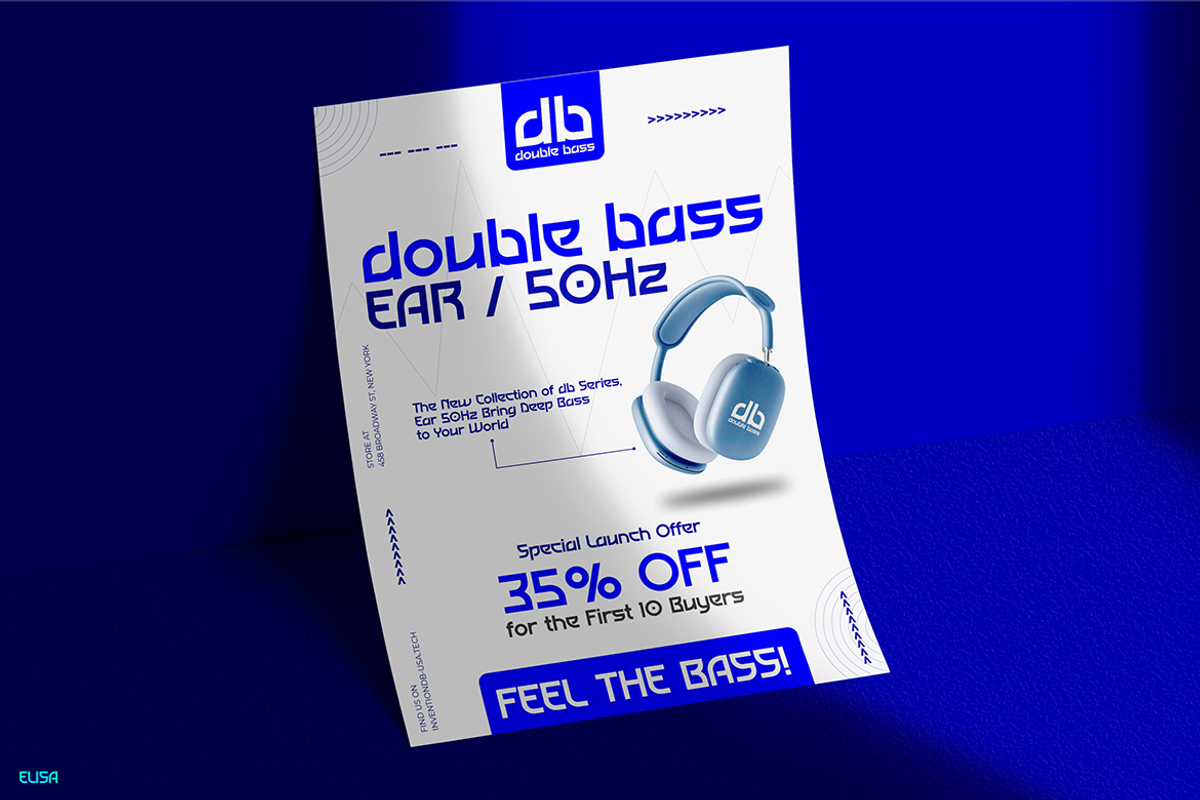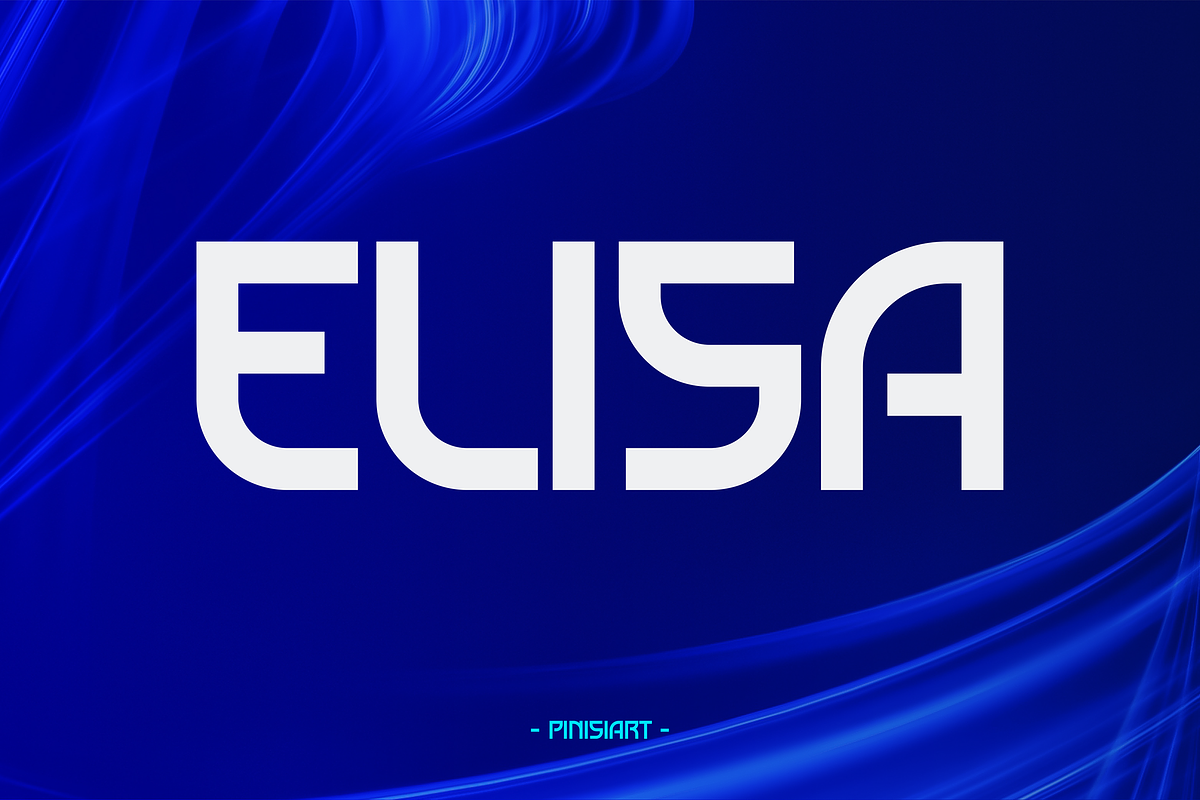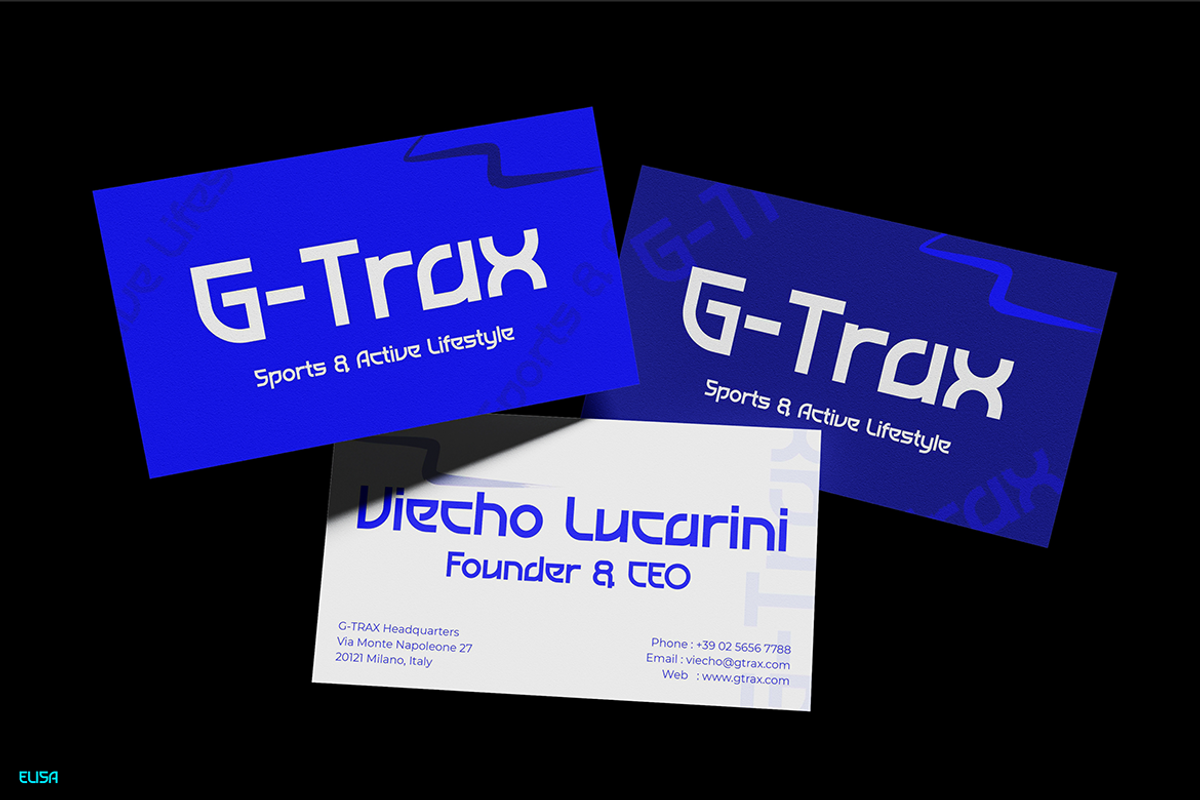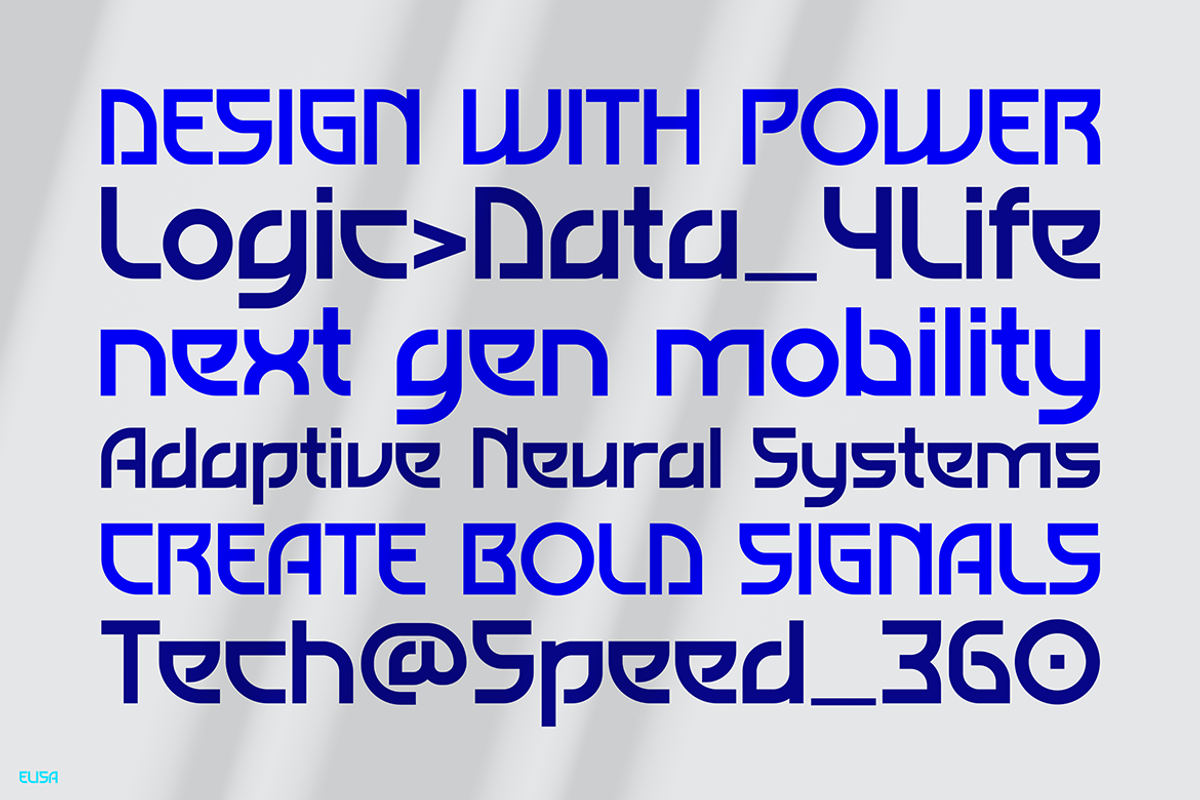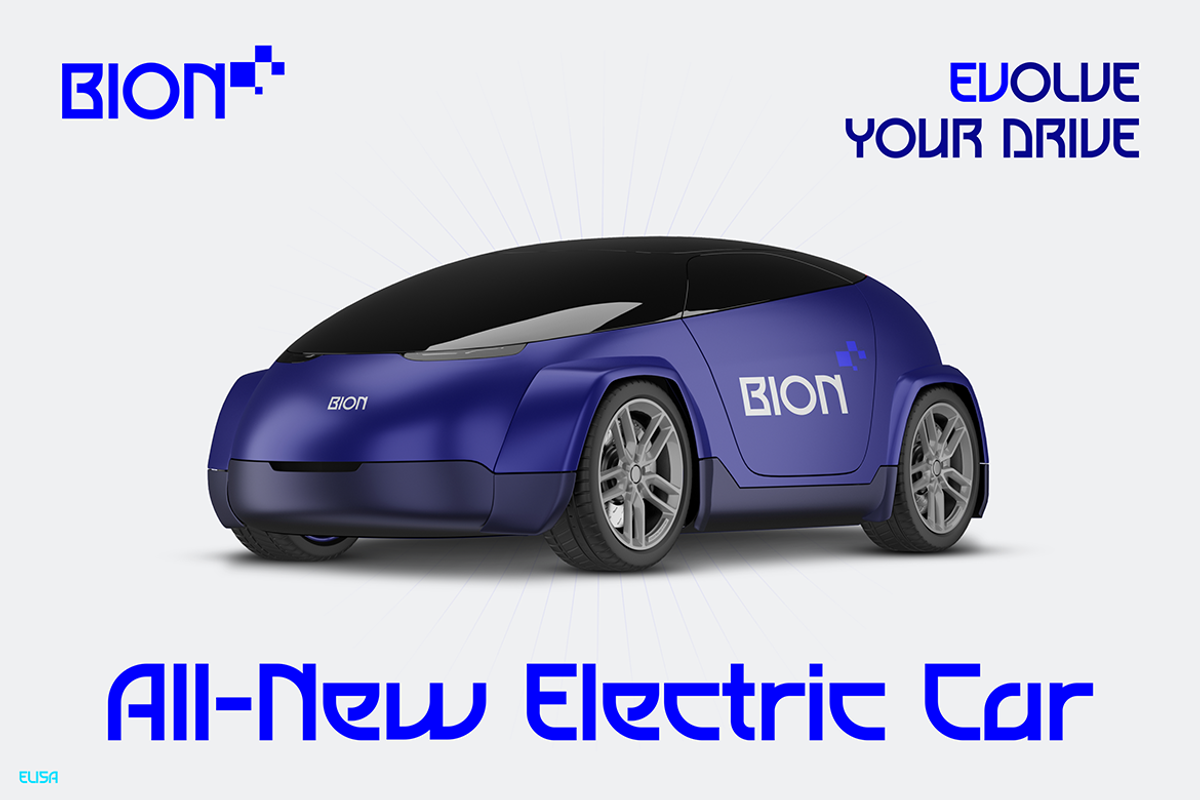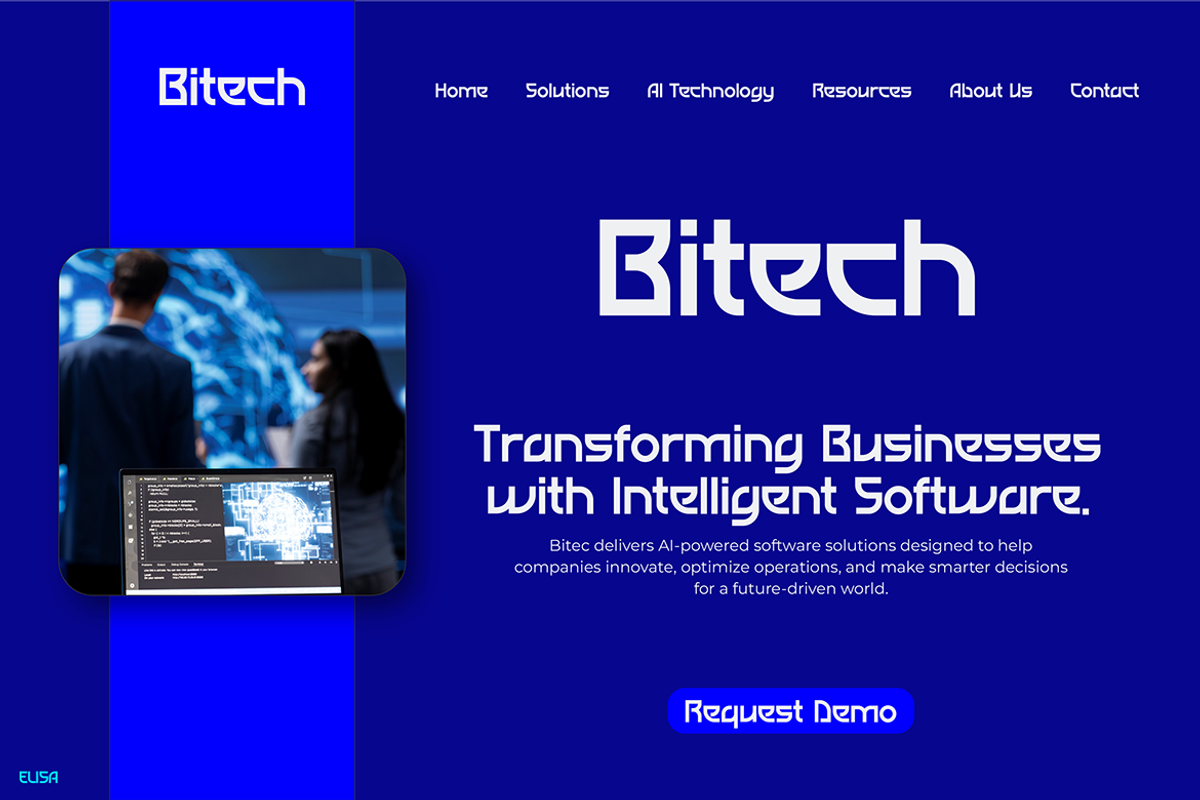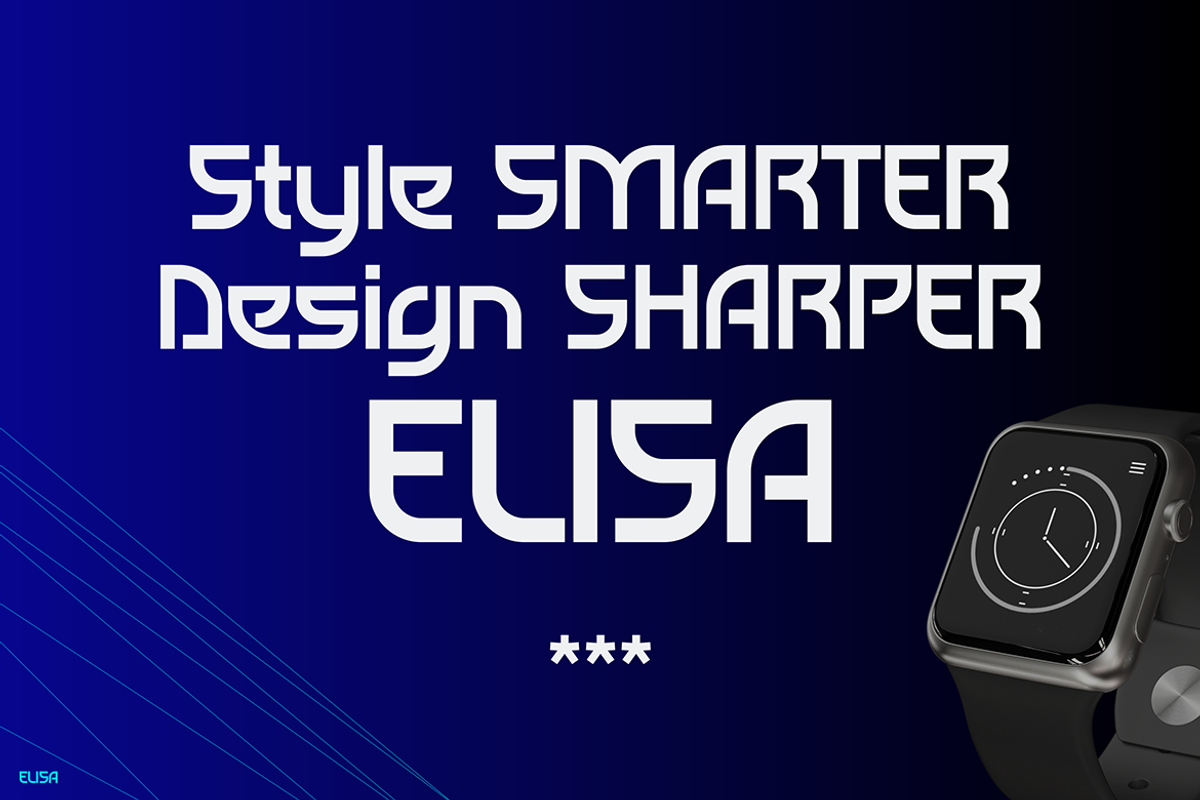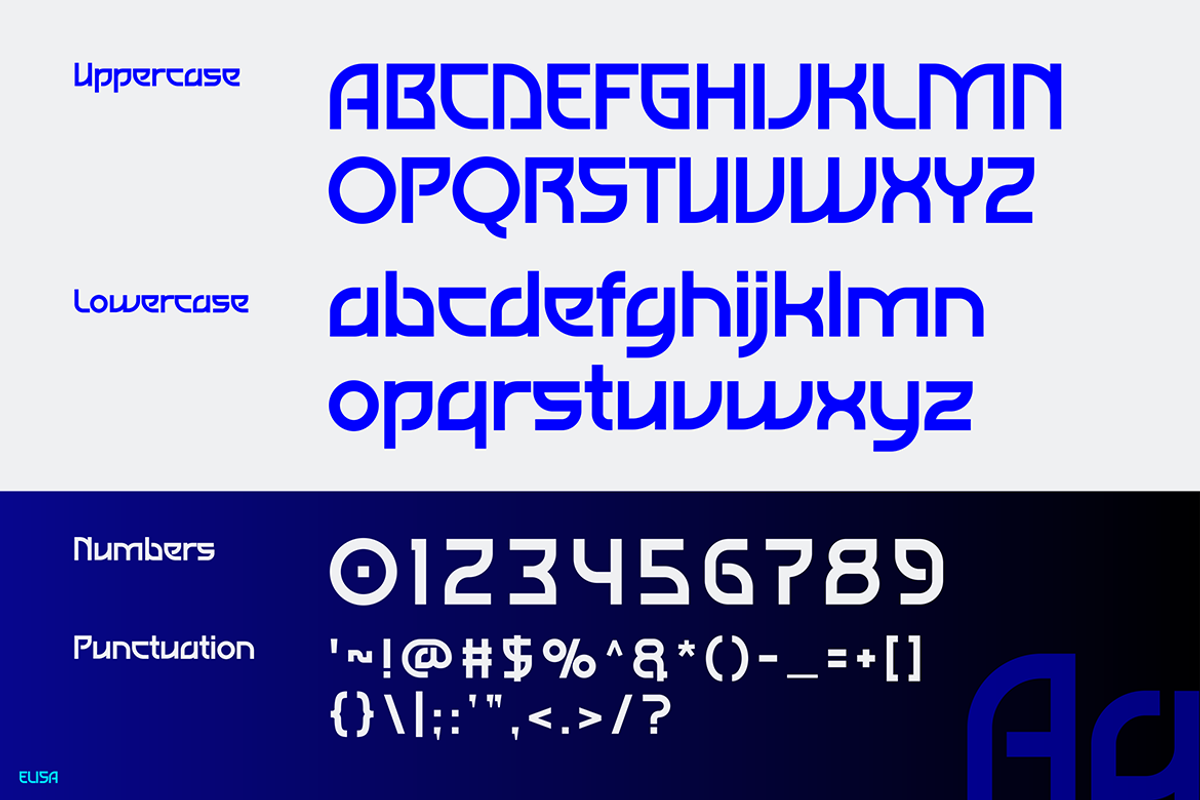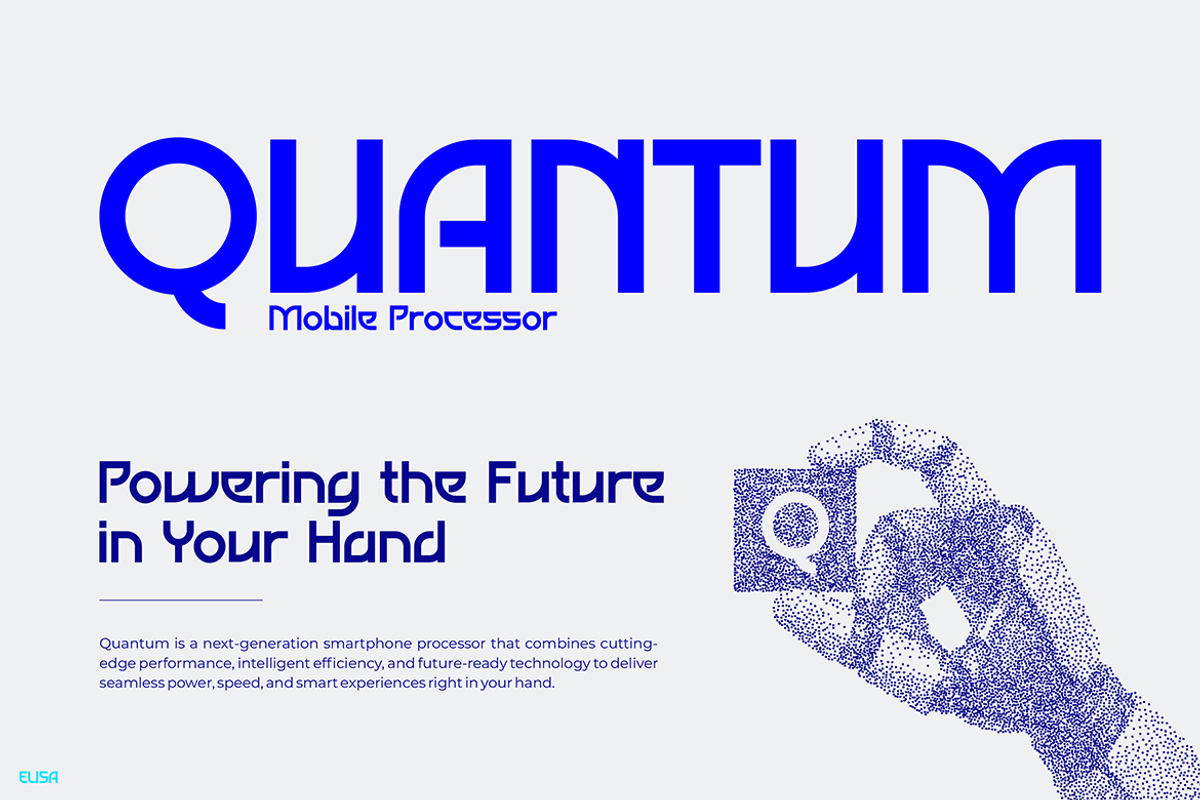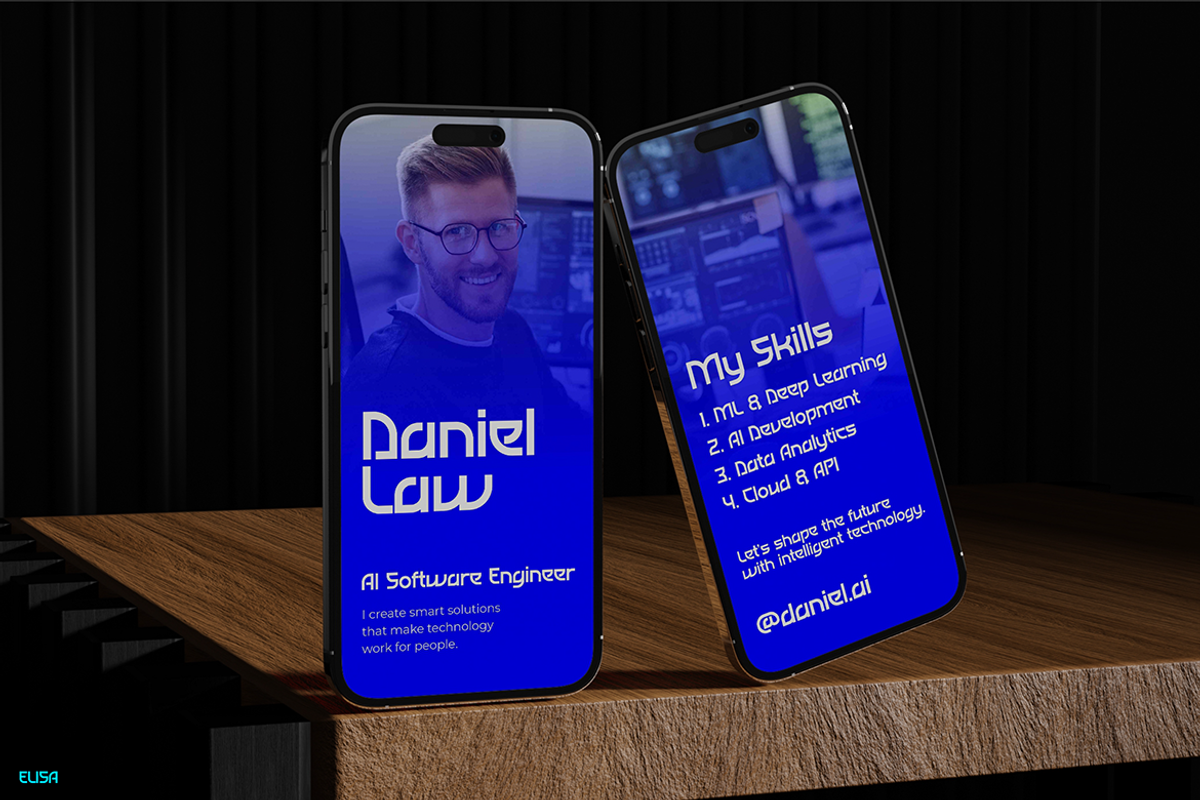
Elisa
Elisa – Modern, Bold, and Versatile
Instagram Font Elisa is a futuristic typeface that adds strong character to any design. It combines clean geometric shapes with modern minimalism. Therefore, it feels unique, stylish, and still very easy to read. Each letter is carefully crafted to look sharp and consistent. As a result, Elisa works both for digital use and for print projects. You can use it in tech-inspired branding, bold advertisements, or stylish packaging. Moreover, it looks amazing in social media posts, especially on Instagram.
Unlike many fonts that focus only on style, Elisa balances beauty with usability. This means you can apply it to large headlines or smaller body text without losing clarity. In addition, its futuristic tone makes it stand out against ordinary typefaces, giving your projects a premium edge.